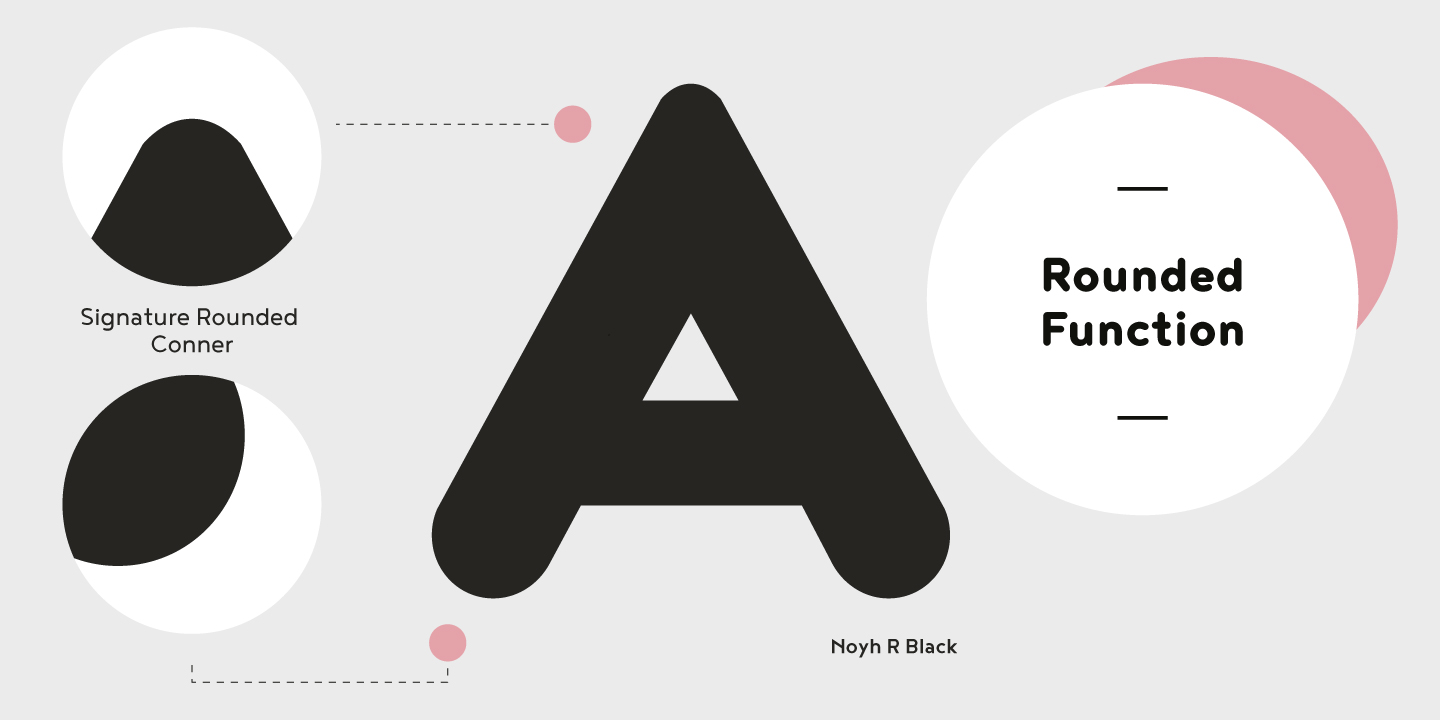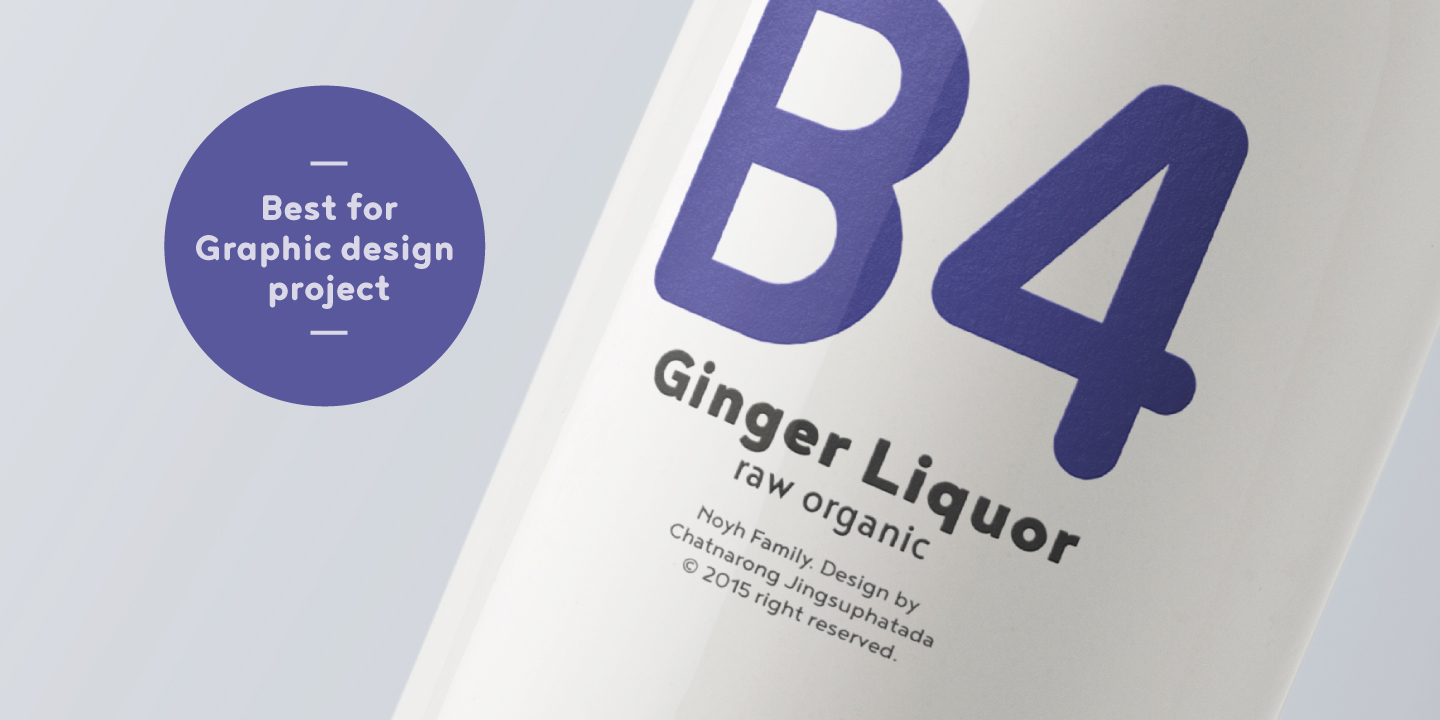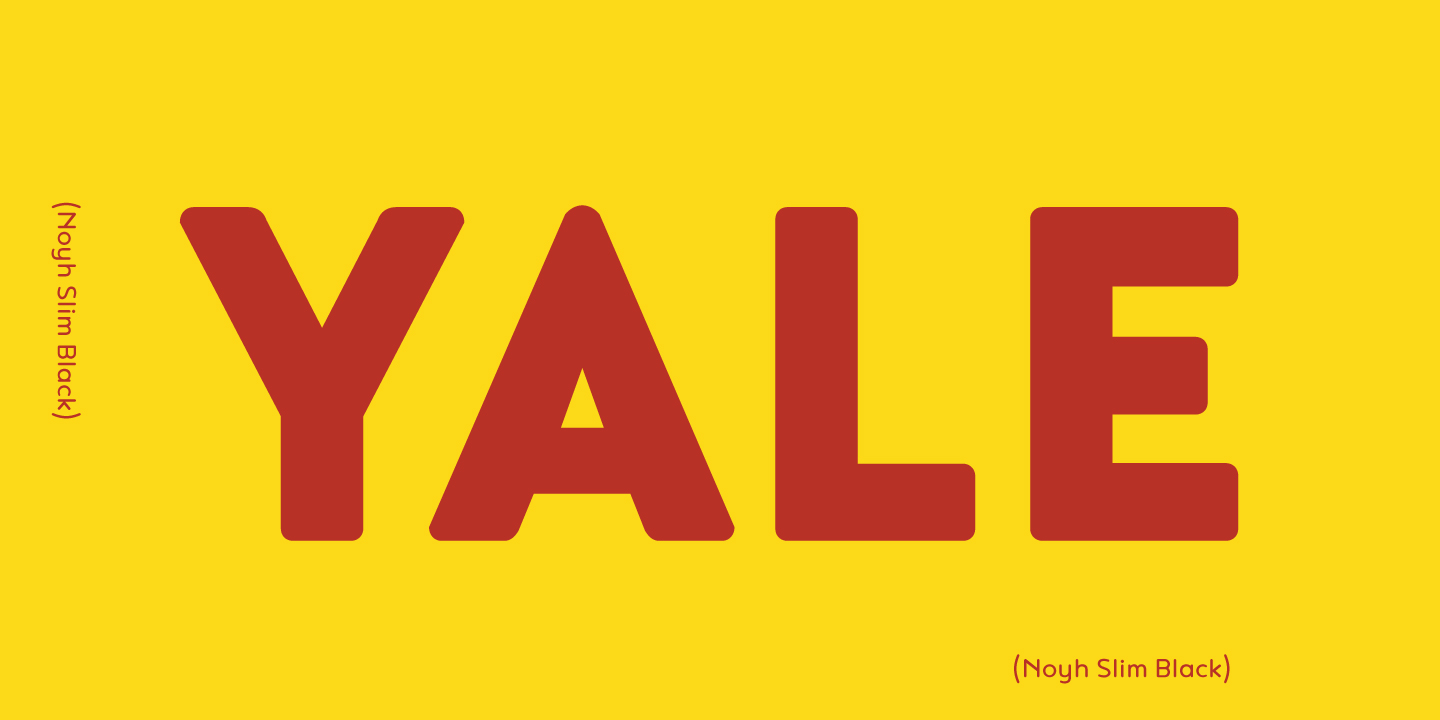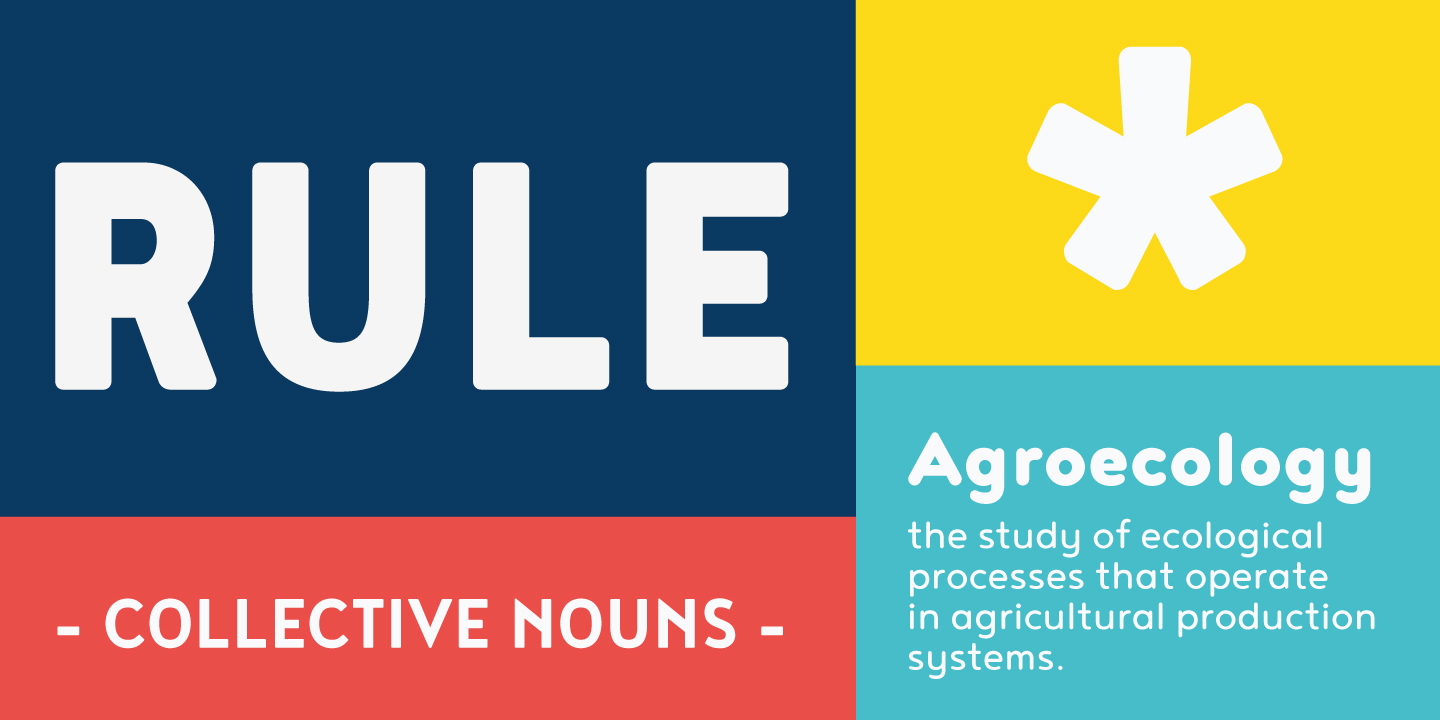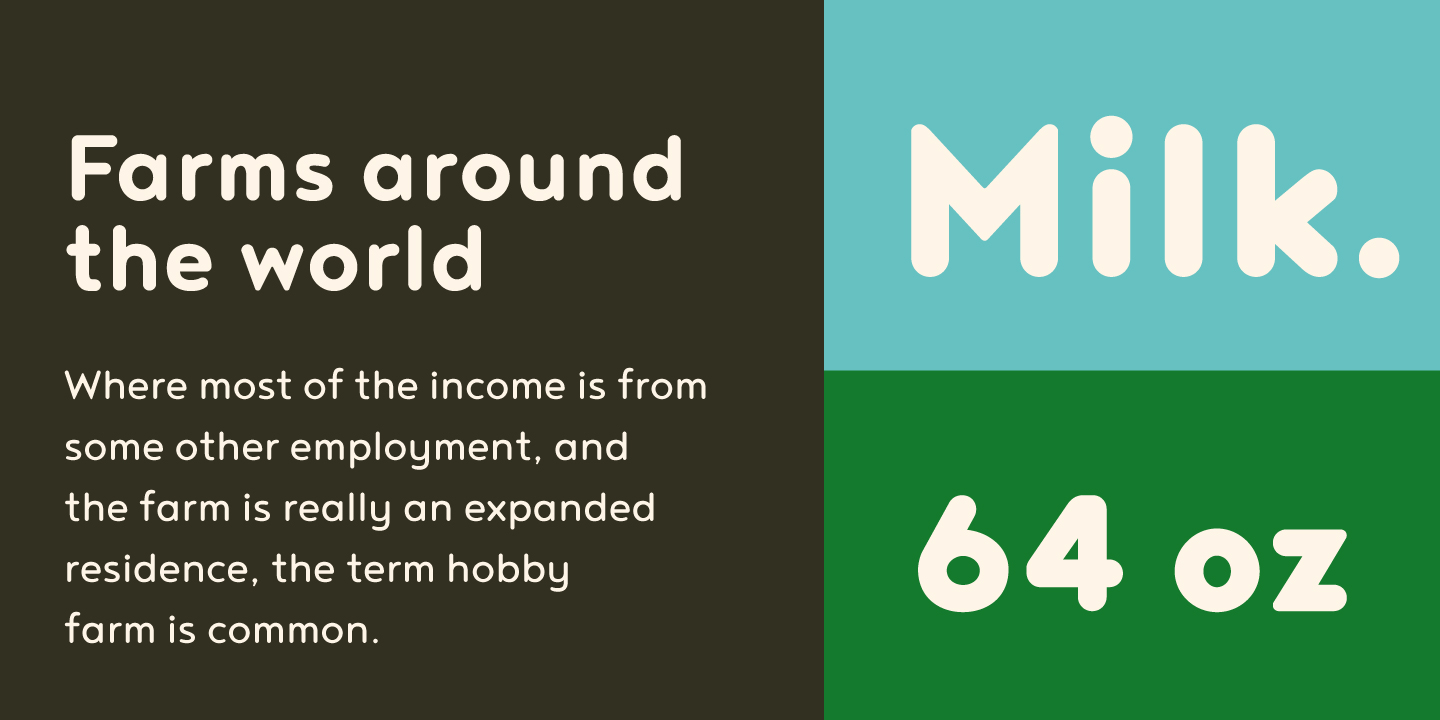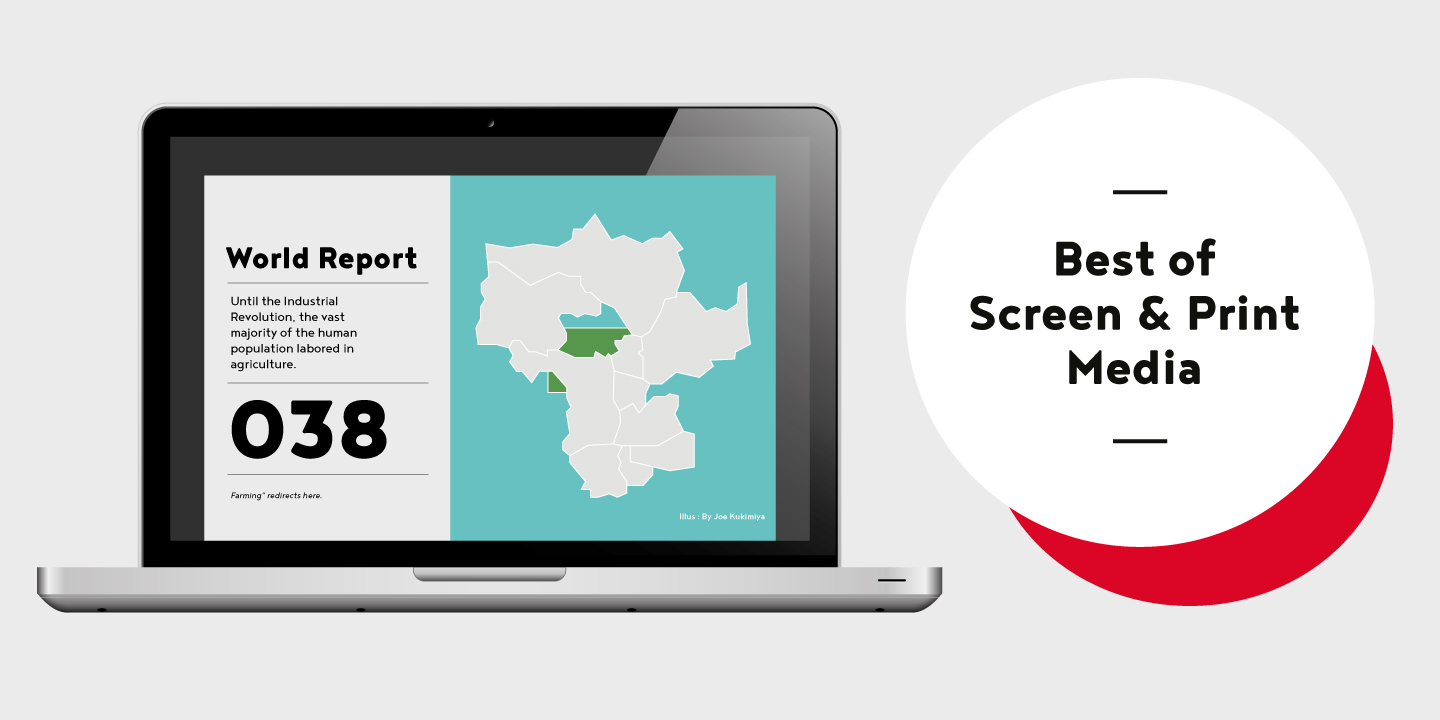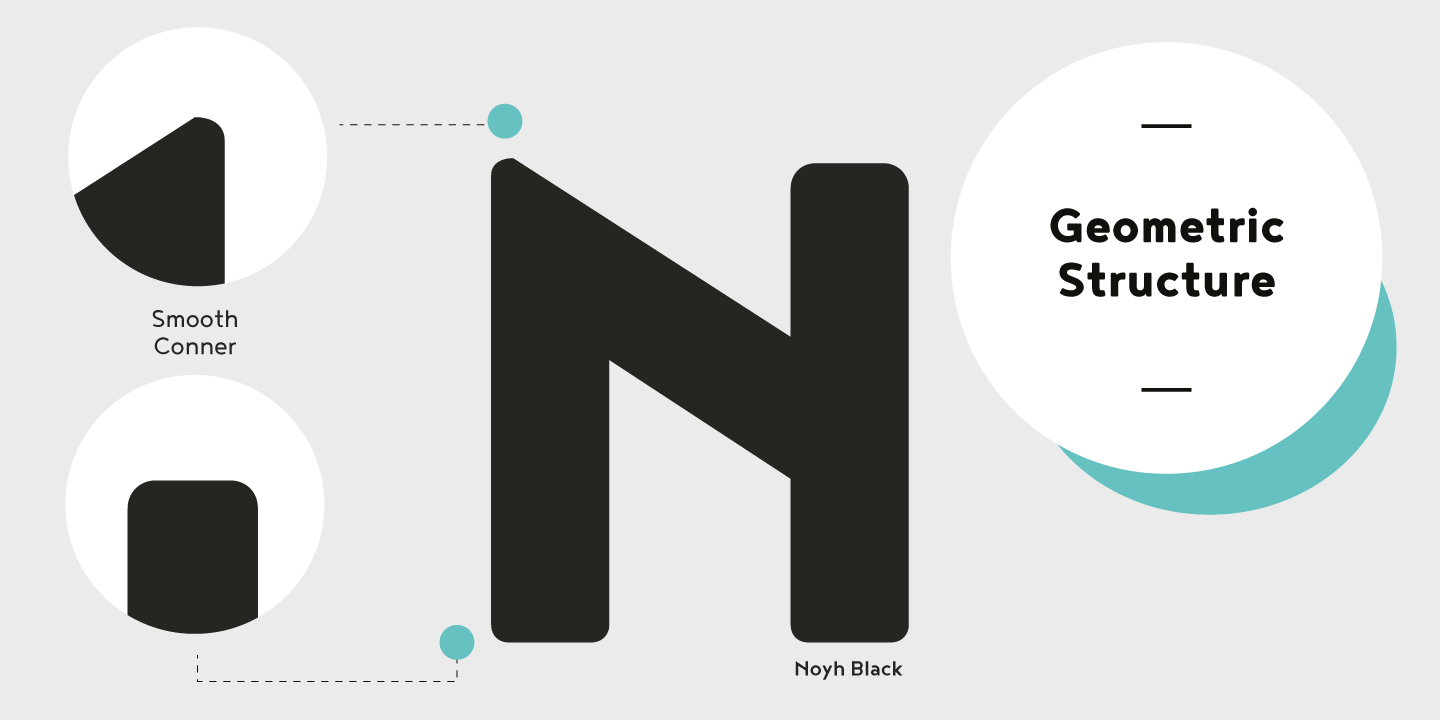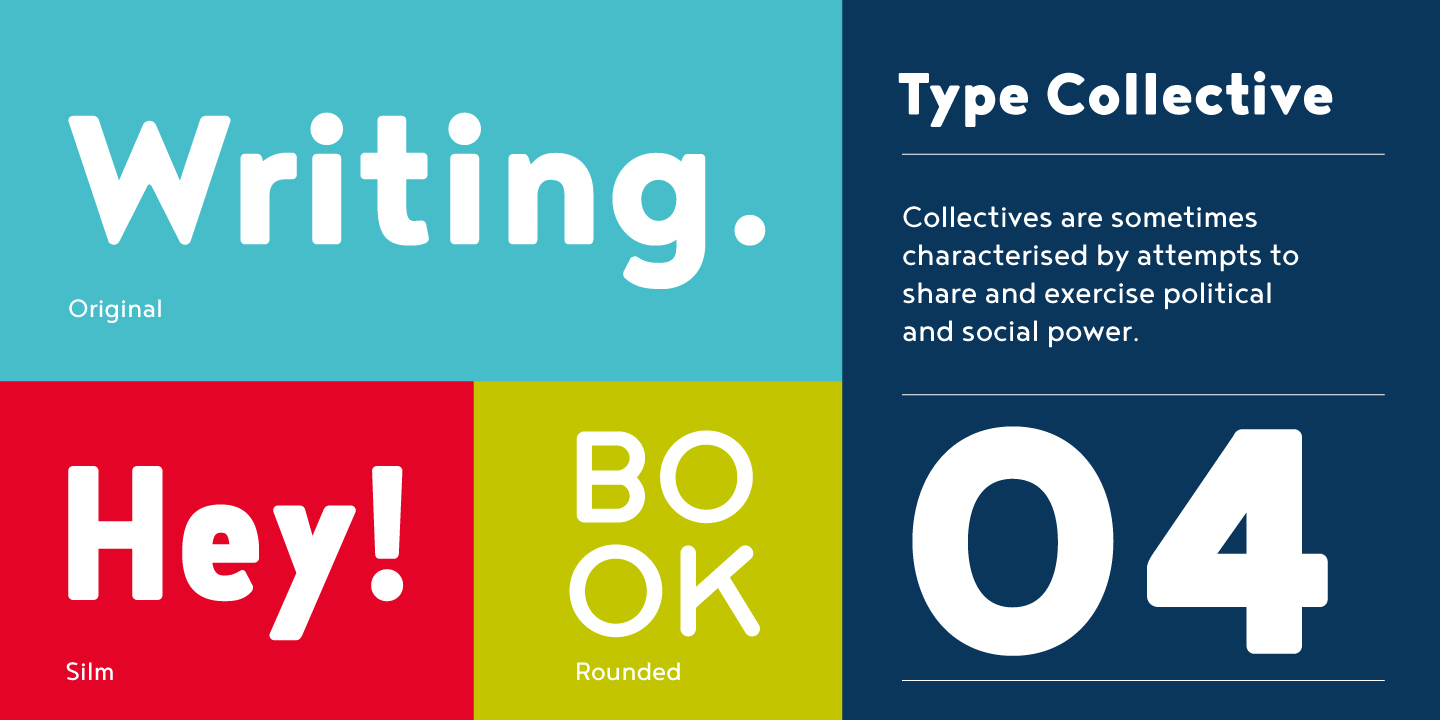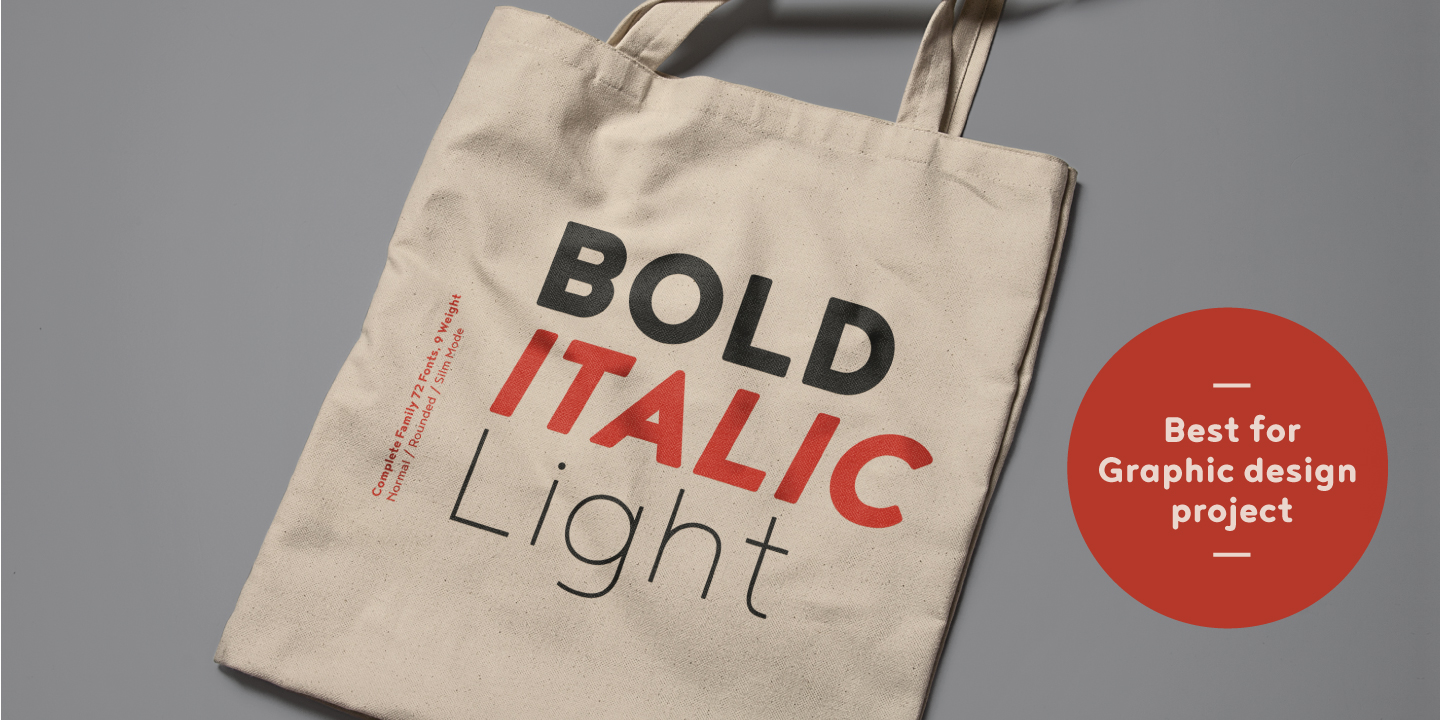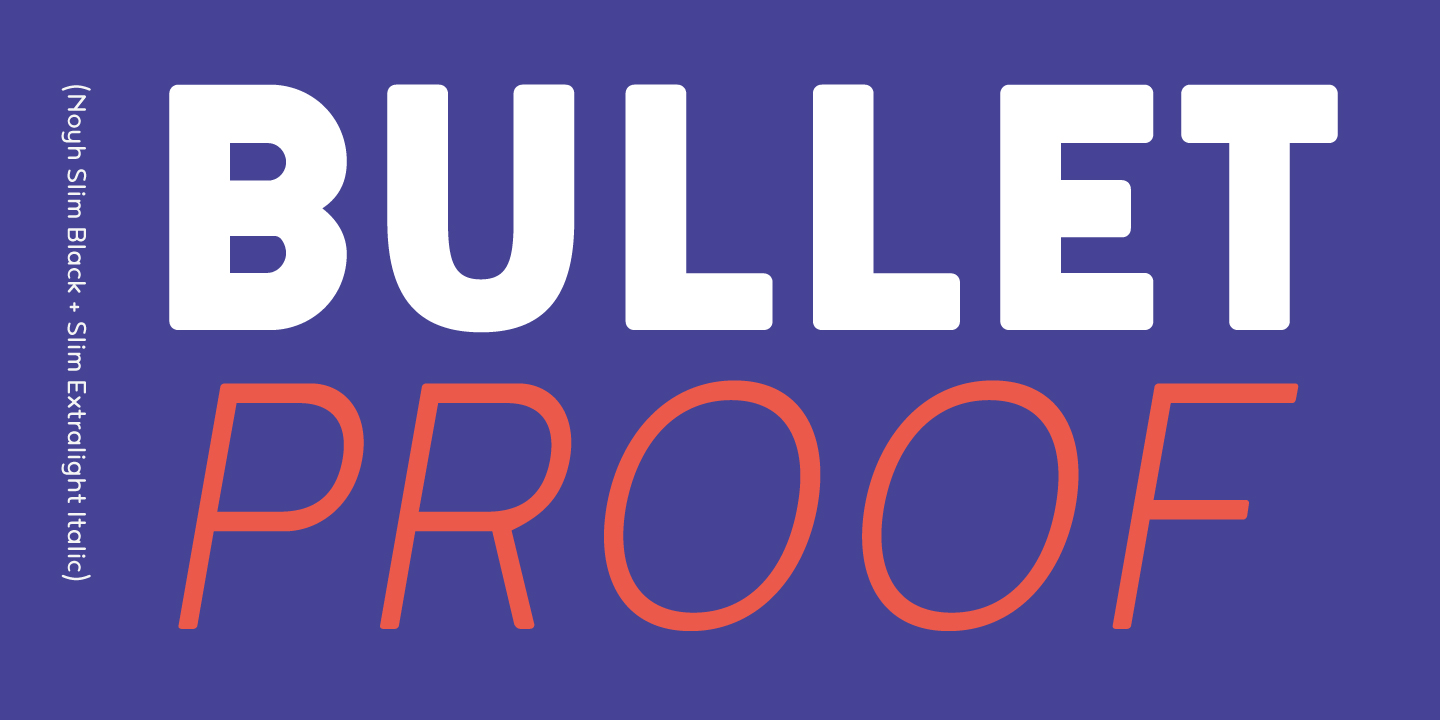
Noyh Family (72 fonts)
Perhaps the greatest advantage of Noyh is the stunning number of fonts it includes. There are no less than 72 fonts, each containing over 350 glyphs. The family has 4 formats – Normal, Rounded, Slim and Slim Rounded. Each format is supplied in 9 weights – from Hairline to Black with their respective italics. The individual fonts work very harmoniously with one another, giving the potential user a variety of options.
The Noyh font family was created by Thai designer Chatnarong Jingsuphatada and is released by the Typesketchbook type foundry. Chatnarong intends to add an additional member to the family – Noyh A – that will include ornaments, undoubtedly making the Noyh family even more versatile and multi-functional. In the meantime, please take a look at his other typographical projects: Delm, Mairy, Tolyer, Abula
Located in the capital city of Thailand, Chatnarong Jingsuphatada started his type design career while working as a graphic designer. Throughout his career, whenever he was unable to find exactly what he needed for his own design projects, he began to create new typefaces rather than settle for ones that didn’t quite fit.
He experimented with different designs for 2 years before launching his Superstore Font Foundry, and then in 2012, began selling his typefaces commercially. Chatnarong made his debut with Gusto, a font that explores the intersection of san serif and humanist styles. Finding a strength in his ability to combine different styles of fonts into one, he went on to create Quan, which consists of a very usable, clean and modern sans typeface and a more rounded sub-family.
The Bangkok-based designer says, “Having worked as a graphic designer, I have gained insight into what designers want and need and what they look for in regard to how usable and interesting a font is. I try to create fonts that are multi-functional and attractive to suit today’s diverse fields of design. I draw inspiration from the creation and integration of different sets of fonts. This method offers me endless possibilities to design original typefaces that boast versatility and creativity.”